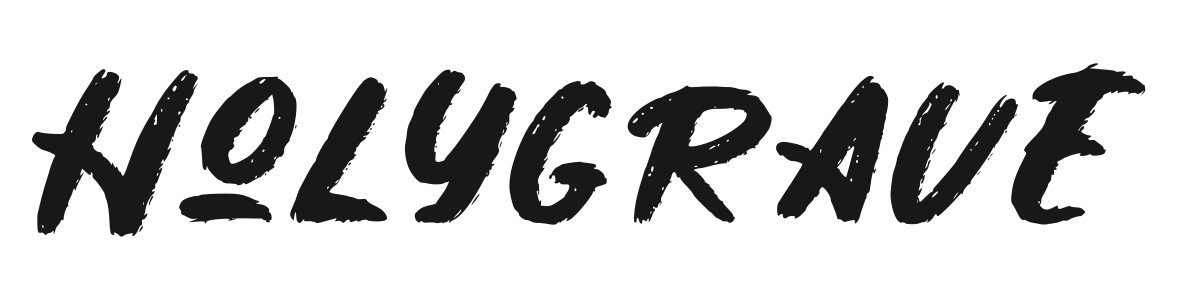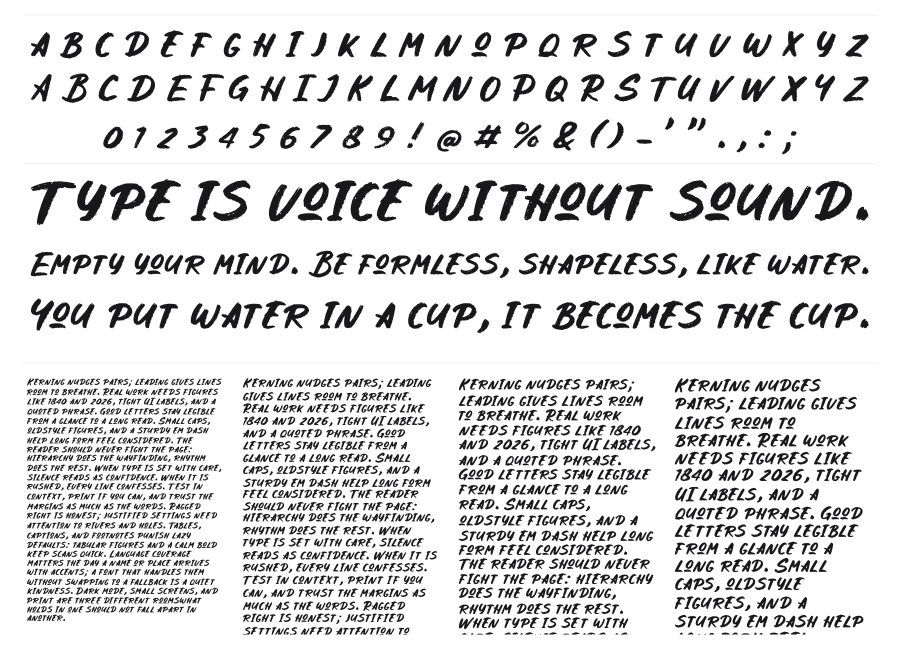
Holygrave
Holygrave is a bold brush script with heavy ink texture and rough, bristle-dragged strokes that feel straight off the studio floor. The strong italic slant and thick letterforms give it kinetic energy without losing legibility at headline sizes. It fits naturally into streetwear, music branding, and any project that needs attitude.